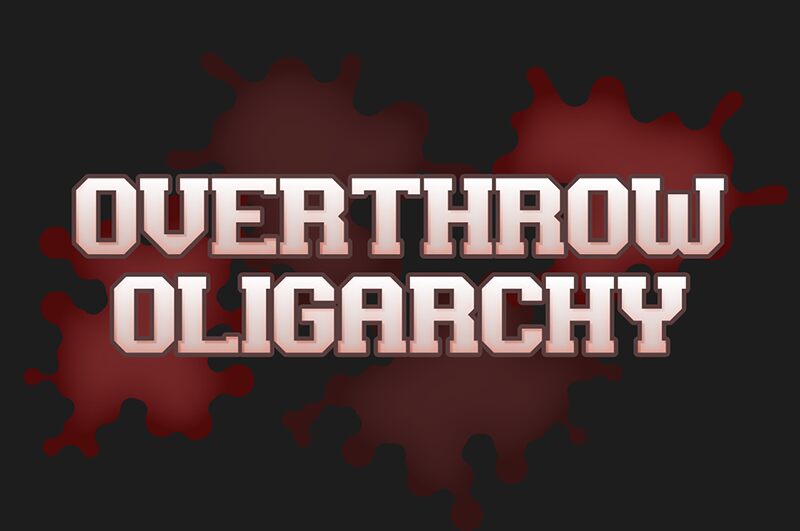
Overthrow Oligarchy Regular
Overthrow Oligarchy font is a bold, impactful display font with an old-school style by Chequered Ink. It combines a modern design with geometric influences to create its unique character. Inspired by machinery and industrial typography, this free display font generates neat letterforms that carry strong confident messages in their appearance.
Visual identity projects, headlines, magazine covers, newsletters re-designs are some of the ideas that can be worked on with the Overthrow Oligarchy font. Sports-related design material such as cards and posters can also benefit from its use along other website design elements!